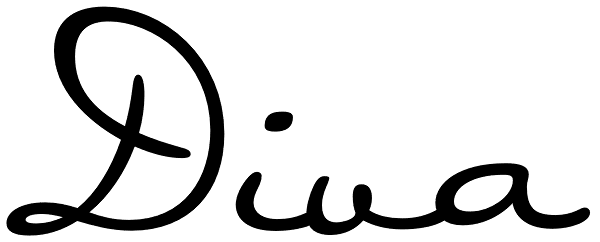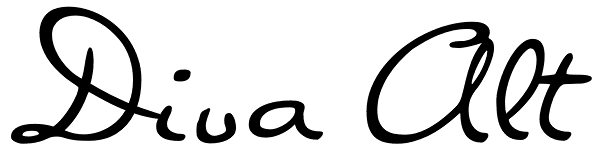
Diva
From the time and place of true Divas, the late Italian nineteenth century, comes a handwriting that is soft, cultured, elegant, down to earth, and capable of surpassing the aesthetic limitations of any era. And just like a true Diva, this...
Diva
Diva Alt